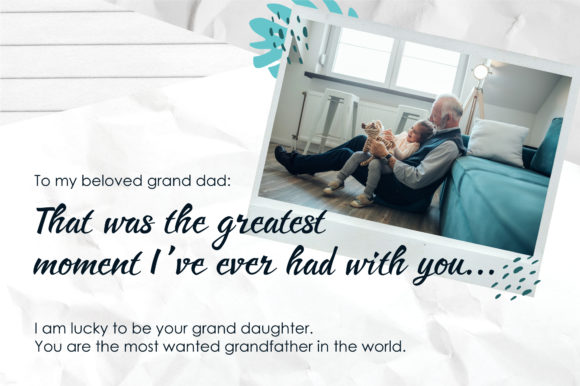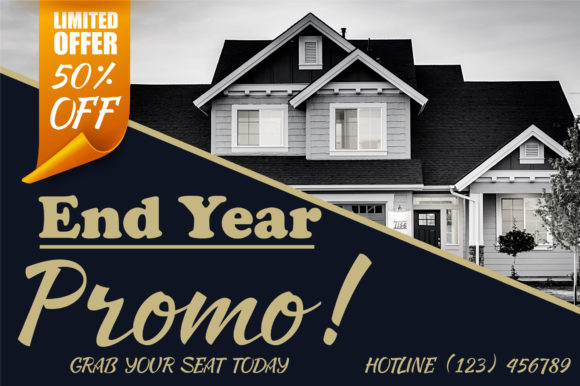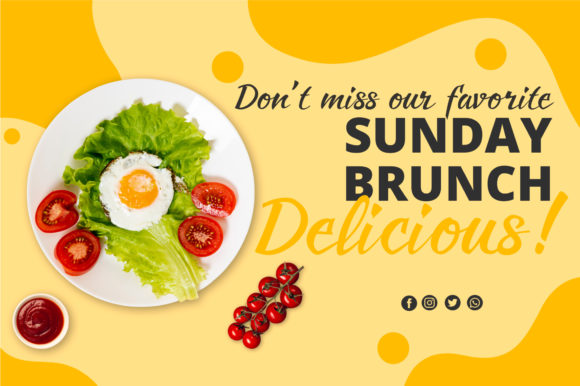
Introduction to Seminyak Font
Seminyak is an exquisite handwritten font, masterfully designed to become a true favorite.
Key Features of Seminyak Font
Why Choose Seminyak Font?
Seminyak Font offers exceptional quality and versatility, making it a valuable addition to your design toolkit. Whether you’re creating for personal projects or commercial use, Seminyak Font delivers professional results.